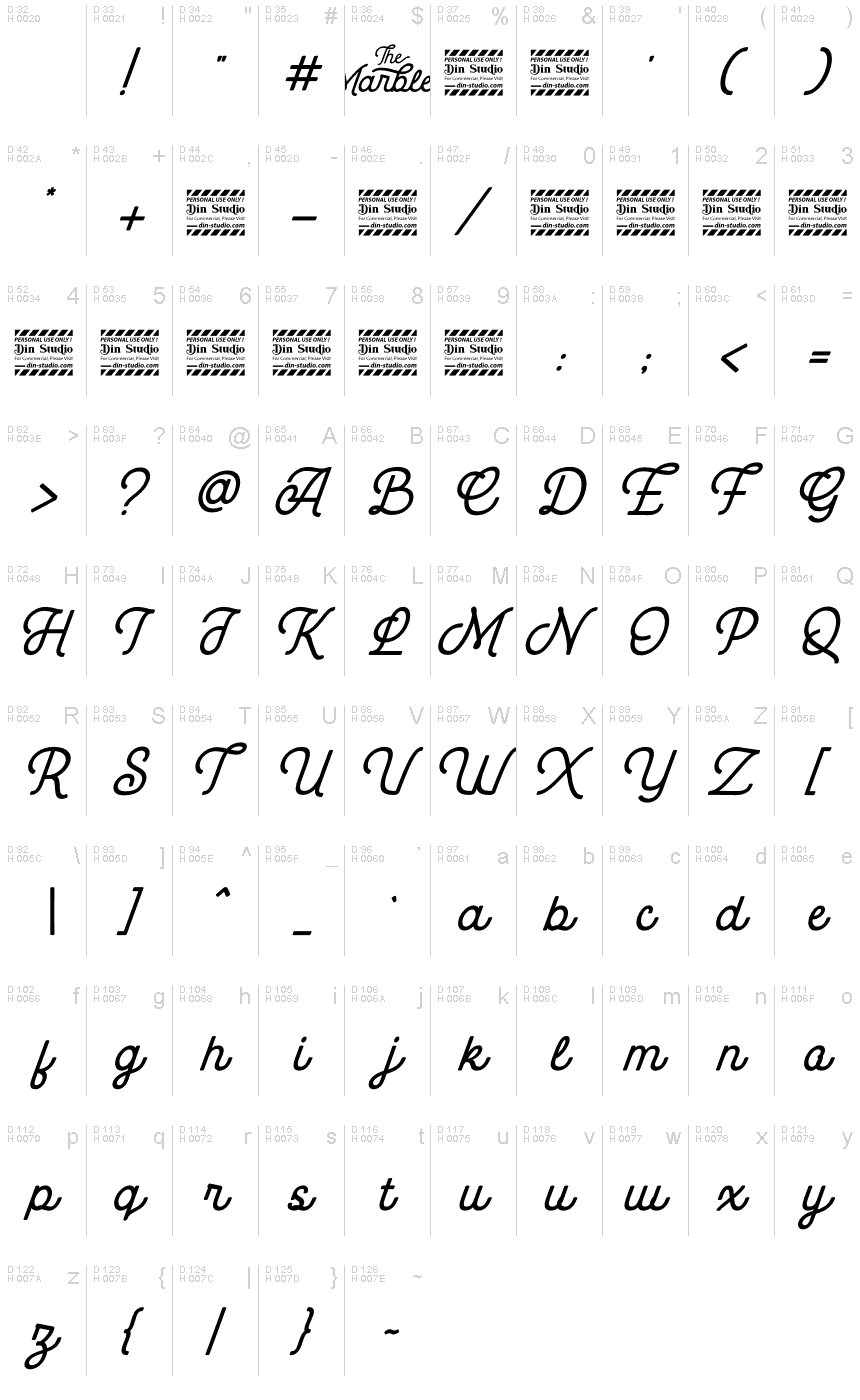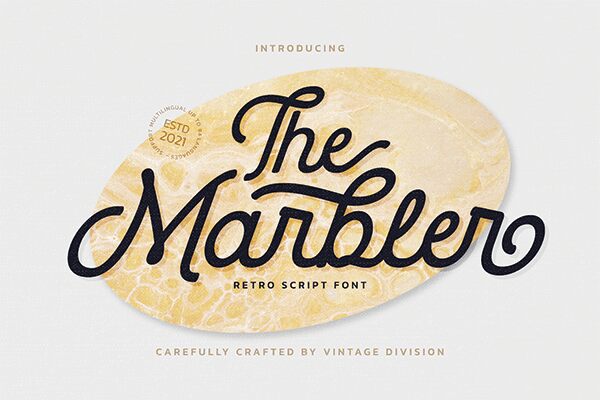
The Marbler, a retro script font designed by Din Studio, offers a unique blend of nostalgia and modernity. With its semi-light weight, this font exudes an effortless elegance that is perfect for vintage-inspired projects.
Its flowing curves and intricate details make it suitable for branding and logo designs that aim to evoke a sense of timelessness. Additionally, The Marbler's versatility extends to invitations, packaging, and editorial designs where its retro vibe can add an element of whimsy and charm.
Let this script font transport your creations to the golden days of yesteryear.